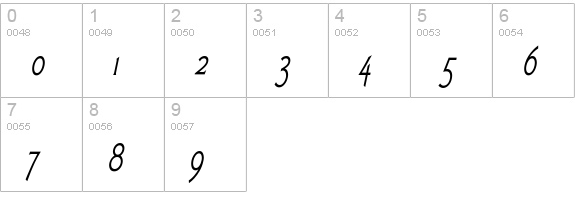
Fletch Condensed Italic Font Details
Fletch Condensed Italic is a distinctive, condensed-width, italic variant in the Fletch typeface family \xE2\x80\x94 well suited to design and typography projects.
Fletch Condensed Italic font is a sleek and modern typeface that exudes elegance and sophistication. Its slanted, condensed design adds a touch of flair to any project, making it perfect for adding a contemporary twist to your designs. The italicized style gives text a dynamic and eye-catching look, making it ideal for headings, titles, and emphasis. This font is not only stylish but also versatile, suitable for a wide range of design projects including branding, advertising, packaging, and more. Its clean lines and smooth curves make it easy to read, ensuring your message gets across effectively. Best of all, Fletch Condensed Italic font is available for free download at FontsMarket.com. Whether you're a seasoned designer looking to add a new font to your collection or a beginner exploring typography for the first time, this font is a must-have. Download it now and elevate your designs with this stunning typeface.